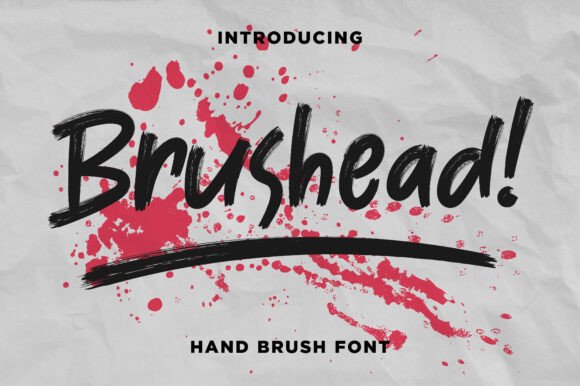
The Designer’s Delight: Exploring the Brushead Font
I still remember the frustration of working on a logo design project, searching for the perfect font that would capture the essence of the brand. The client wanted something bold, attention-grabbing, and unique. I scoured through font libraries, but nothing seemed to fit the bill. That’s when I stumbled upon the Brushead font, and it was love at first sight! ✨
With its rough and bold letters, Brushead instantly added a touch of personality to my design. The hand-drawn brush font was perfect for creating a logo that stood out from the crowd. In this article, I’ll share my experience with Brushead, its features, and how to make the most of it in your designs.
An Honest Review of Brushead Font
What I Love About Brushead
- ✨ Unique and attention-grabbing: Brushead’s rough and bold letters make it perfect for headlines and logos that need to stand out.
- ✅ Multilingual support: The font includes uppercase multilingual letters, punctuation, and numbers, making it versatile for various design projects.
- ✅ Alternate styles: Brushead includes alternate styles for many letters, which can be toggled via Caps Lock, adding an extra layer of creativity to your designs.
While Brushead is an excellent font, there are a few things to keep in mind: 🤔
- ⚠️ Limited use cases: Brushead’s bold and rough texture may not be suitable for body text or small font sizes.
- ⚠️ Glyph limitations: While Brushead includes a range of glyphs, it may not have every special character or symbol you need.
The Story Behind Brushead
Brushead was designed with the intention of creating a bold and attention-grabbing font that’s perfect for headlines and logos. The designer wanted to create a font that would add a touch of personality to any design project, while still being versatile and easy to use.
Q: What is the Brushead font best used for?
A: Brushead is best used for logos, branding, print projects, and any attention-drawing headline.
Q: Does Brushead include multilingual support?
A: Yes, Brushead includes uppercase multilingual letters, punctuation, and numbers.
Q: How do I access alternate styles in Brushead?
A: Alternate styles can be toggled via Caps Lock on your keyboard.